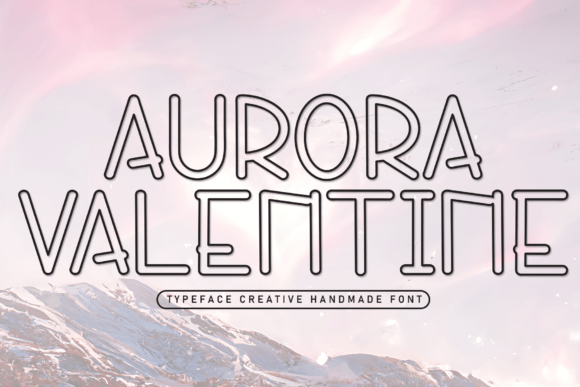
Aurora Valentine Font: Adding a Touch of Whimsy to Your Designs
I’ll never forget the time I was working on a wedding invitation project, and my client asked me to add a dash of personality to the design. I scoured the internet for the perfect font, but nothing seemed quite right. That was until I stumbled upon the Aurora Valentine Font. This delightful, handwriting-inspired font exudes warmth and charm, making it perfect for spicing up wedding invitations, greeting cards, or any design project that desires a dash of enjoyment.
- ✨ The Aurora Valentine Font has a unique, playful feel that’s sure to capture the attention of your audience.
- ✅ Its handwriting-inspired style adds a touch of warmth and personality to any design.
- 💕 The font is perfect for creating romantic and whimsical designs, making it ideal for wedding invitations, anniversary cards, and Valentine’s Day designs.
- 🎨 The font’s versatility allows it to be used in a variety of design projects, from digital graphics to print materials.
While the Aurora Valentine Font is a beautiful addition to any design, there are a few quirks to be aware of:
- ⚠️ The font may not be suitable for body text, as it’s best used for headlines and titles.
The Aurora Valentine Font was inspired by the beauty of handwritten letters and the joy of sharing love and kindness. The font’s creator aimed to craft a font that would bring a touch of whimsy and romance to any design, making it perfect for special occasions and everyday creativity.
| What is the Aurora Valentine Font best used for? | The Aurora Valentine Font is perfect for wedding invitations, greeting cards, and any design project that desires a dash of enjoyment and whimsy. |
| Is the Aurora Valentine Font suitable for body text? | No, the Aurora Valentine Font is best used for headlines and titles, as it may not be suitable for body text. |